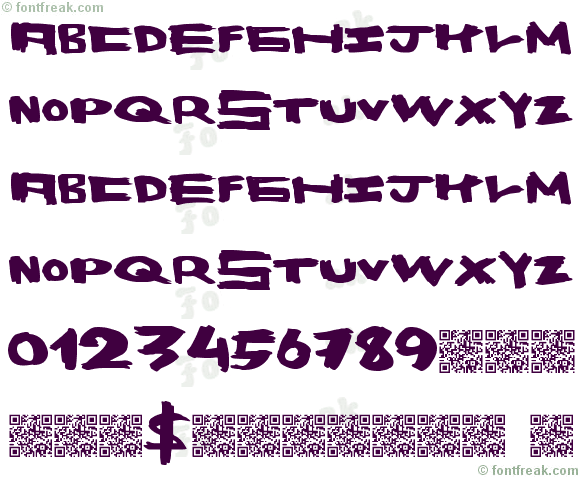
SpaceBang
Introducing the SpaceBang font by Xerographer Fonts, a striking display typeface that captures the imagination with its unique character. This font, released in 2013, falls into the display category, making it a perfect choice for projects that demand attention. The SpaceBang font features a bold, slightly irregular stroke weight that gives it a hand-crafted, dynamic feel. With minimal contrast and a slightly distressed texture, it evokes a sense of adventure and creativity, making it ideal for various design applications.
The spacing between the letters is deliberately wide, enhancing its bold visual impact. Decorative elements include jagged edges and uneven surfaces, which contribute to the font's energetic and playful nature. These characteristics make SpaceBang an excellent choice for use cases such as movie posters, where it can convey action and excitement; music event flyers, adding a sense of rhythm and movement; and even restaurant menus, where a fun and casual atmosphere is desired.
What truly sets the SpaceBang font apart is its ability to blend artistic flair with functional design. This typeface allows creators to express bold ideas and themes while maintaining readability, making it a valuable addition to any designer's toolkit. Whether you're creating eye-catching visuals or branding materials, SpaceBang is a fantastic choice that will elevate your work to new heights.